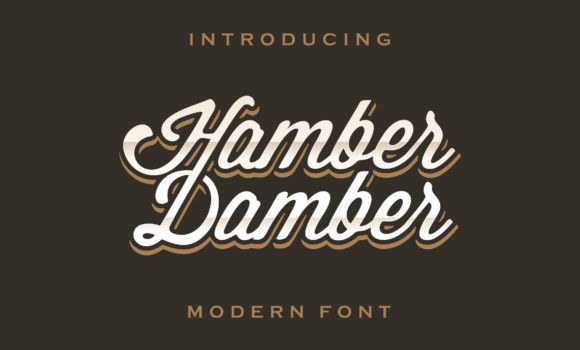
Hamber Damber Font – Free Download Introduction to Hamber Damber Font Hamber Damber is a bold and authentic script font. 📸 Preview Gallery 3 images 📌 Product Name Hamber Damber Font 👤 Author kalingga.albert 📂 Category Explore ⬇️ Download Hamber